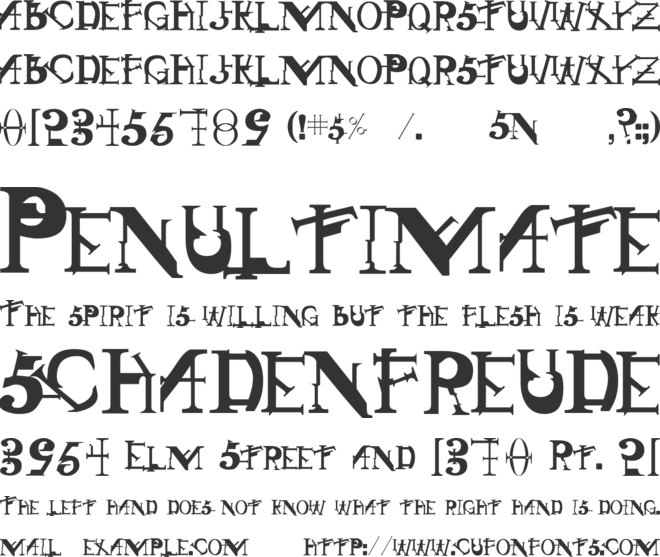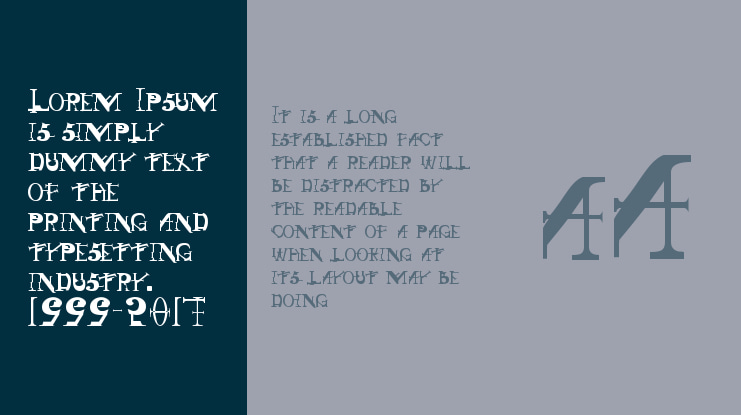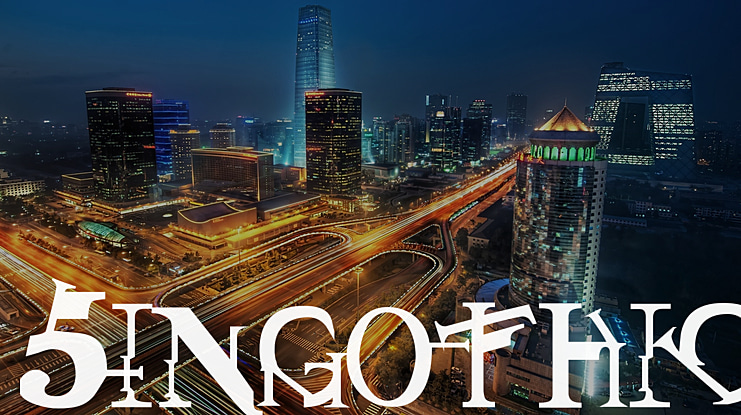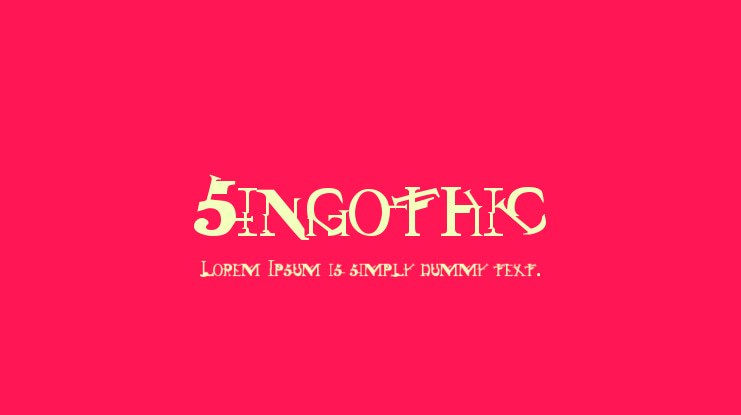
Singothic Font
If you're a big Nine Inch Nails fan then maybe you'll recognize
this. The single for the song "Sin" had a post-modern deconstructionist
pseudo-gothic (or something) font used for writing the word "Sin" and the
acronym "NIN." I was kinda bored, thought it looked kinda cool, and
decided to extrapolate an entire font from it. Some characters worked
better than others, but the general effect is there. It should make a
kind of interesting gothic-type font; I wouldn't go off and write any
business letters with it. It's just for fun, really. This is, by the
way, the second revision of this font, with slightly cleaner generation
and extra characters.